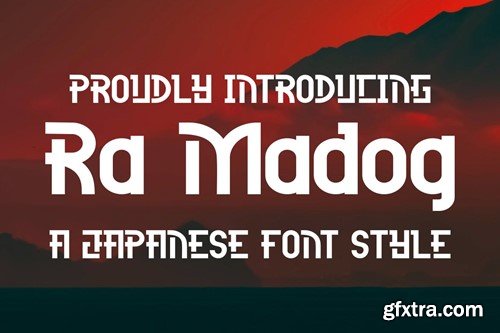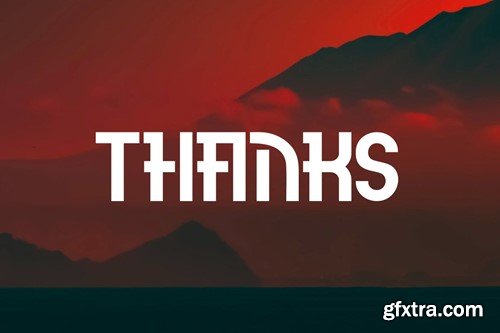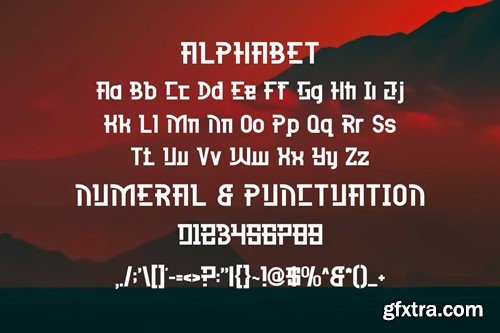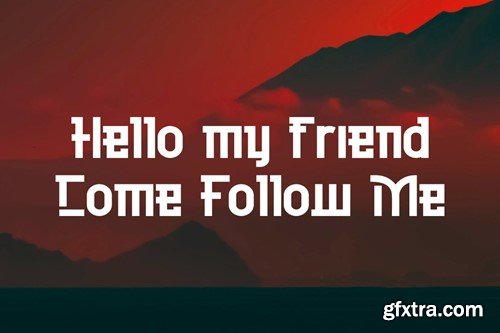
罗马马克多 - 一种日本风格的字体 S8KVNTD
Ra Madog - A Japanese Style Font
Introducing Ra Madog - Modern Japanese Style Modern Fonts. A Japanese style display font suitable for your design project needs, such as : Japanese themes, social media posts, quotes, overlays on images, posters, print needs, website banners and more. What you get: Thank you.